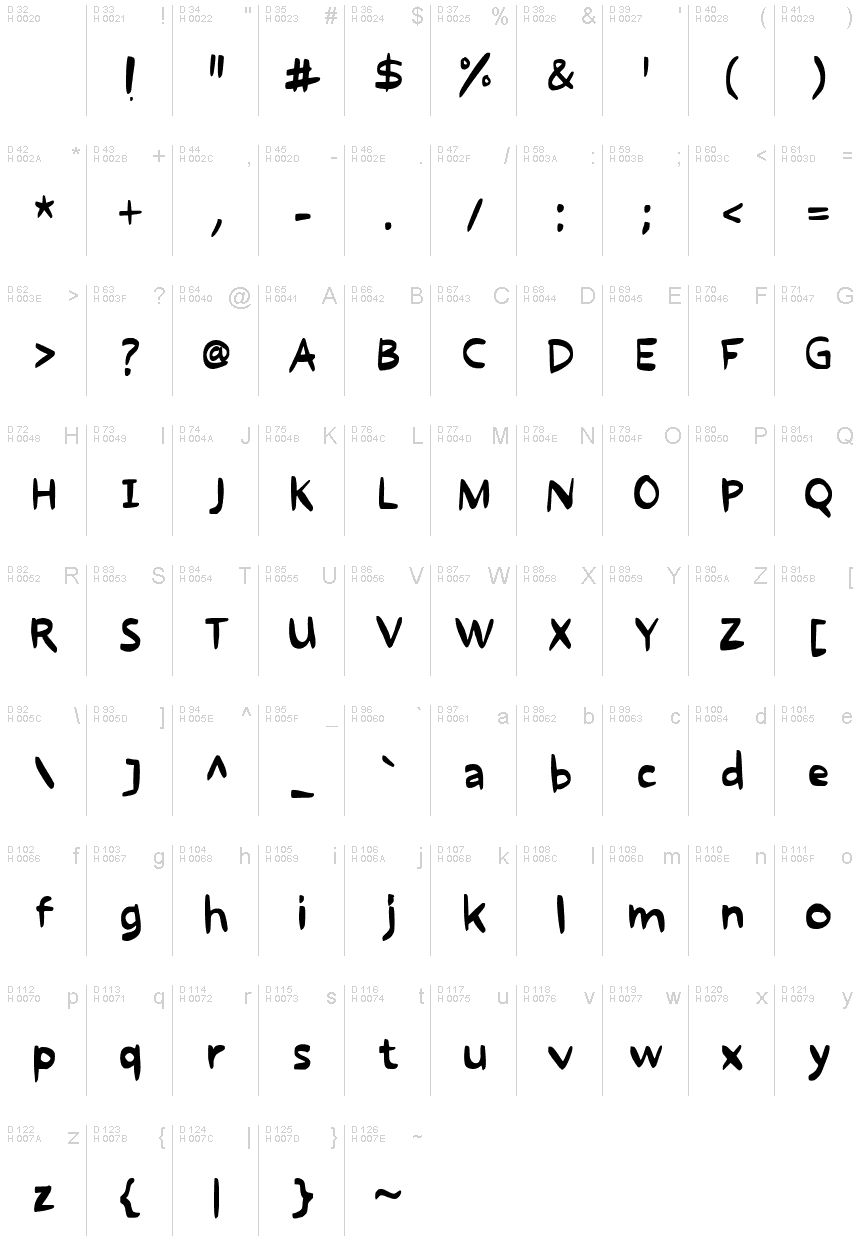
Say That You Remember Regular
Say That You Remember, designed by Paula M, is a casual handwritten font with a bold touch. Perfect for crafting joyful invitations and making a statement on posters and cards, this font will make your projects stand out!